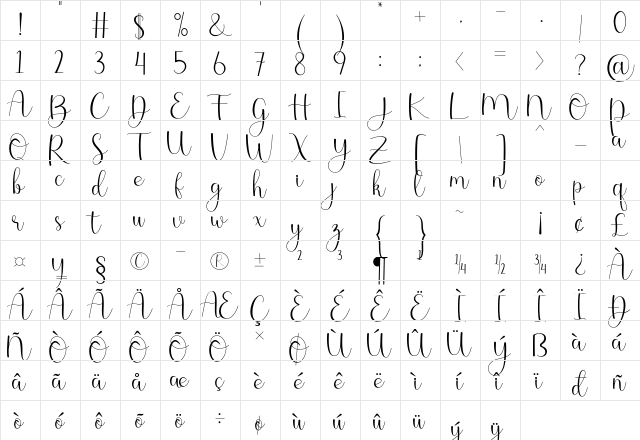
Dianita Regular
Design Context for Dianita Typeface
Dianita is a composed and adaptable typeface that performs quietly and consistently across a wide range of design contexts.